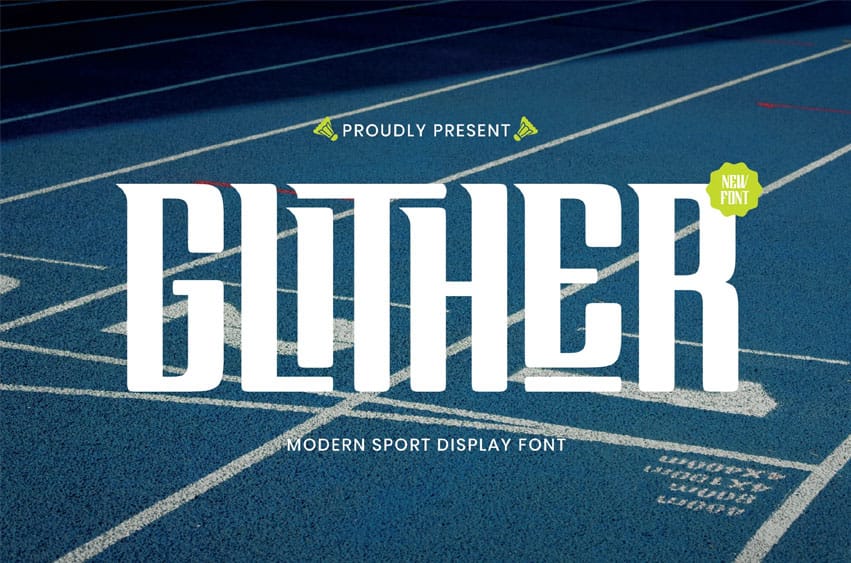
Glither Font is a bold and energetic display font built to stand out. Its sharp edges, tall structure, and dynamic style make it the perfect choice for sports branding, athletic merchandise, game titles, and powerful typographic statements. Whether you’re designing for a competitive team or a modern sportswear label, GLITHER brings intensity and motion to your project.